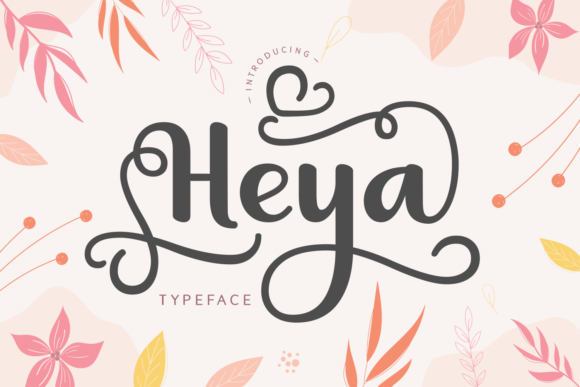
Dive into the enchanting world of Heya, a script font that captures the essence of handwritten elegance and charm. With its varying baseline, smooth lines, and a captivating collection of glyphs and alternates, Heya breathes life into every design it graces.
Indulge in the whimsical ambiance of wedding invitations adorned with Heya's graceful strokes. Let thank-you cards express your heartfelt gratitude with a touch of handwritten warmth. Quotes take on a new level of sophistication when penned in Heya's alluring script. Greeting cards become treasured keepsakes, conveying your sentiments with an air of timeless elegance.
Heya's versatility extends beyond personal expressions. Logos and business cards gain a touch of distinction, exuding both professionalism and creativity. It's the perfect choice for any design that yearns for a handcrafted aesthetic.
Navigating Heya's extensive character set is a breeze thanks to its PUA encoding. Access all the glyphs and swashes with ease, unleashing a world of creative possibilities. Whether you're a seasoned designer or just starting your creative journey, Heya empowers you to add a touch of handwritten magic to your designs.
Embrace the allure of Heya and let your imagination soar. Its exquisite script will transform your designs into captivating works of art, leaving a lasting impression on all who encounter them.